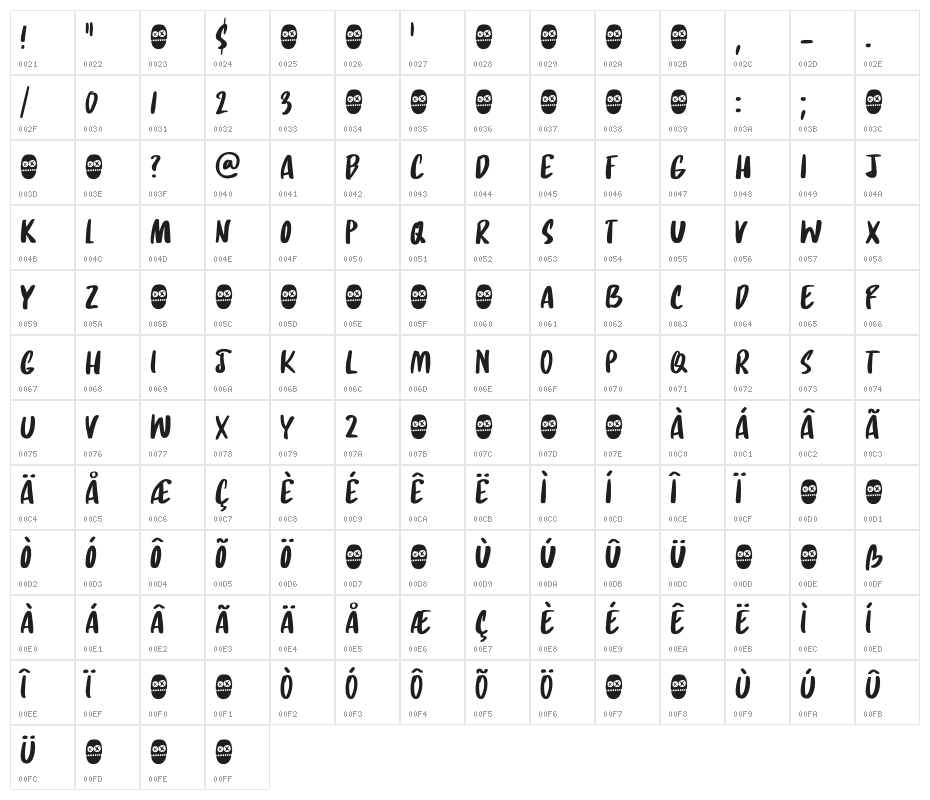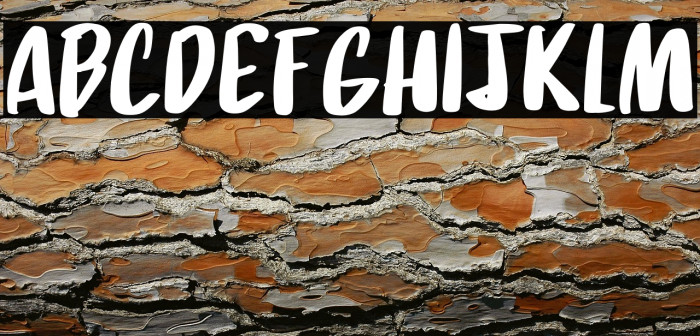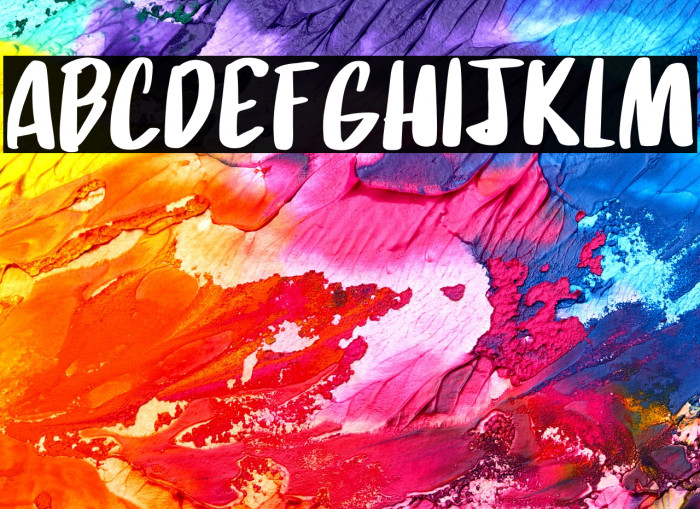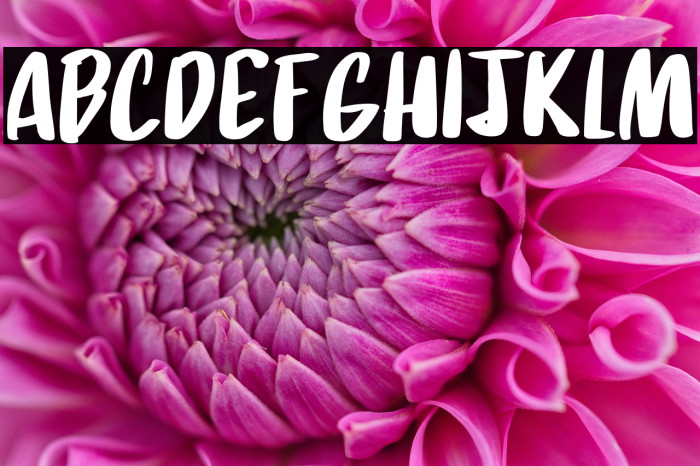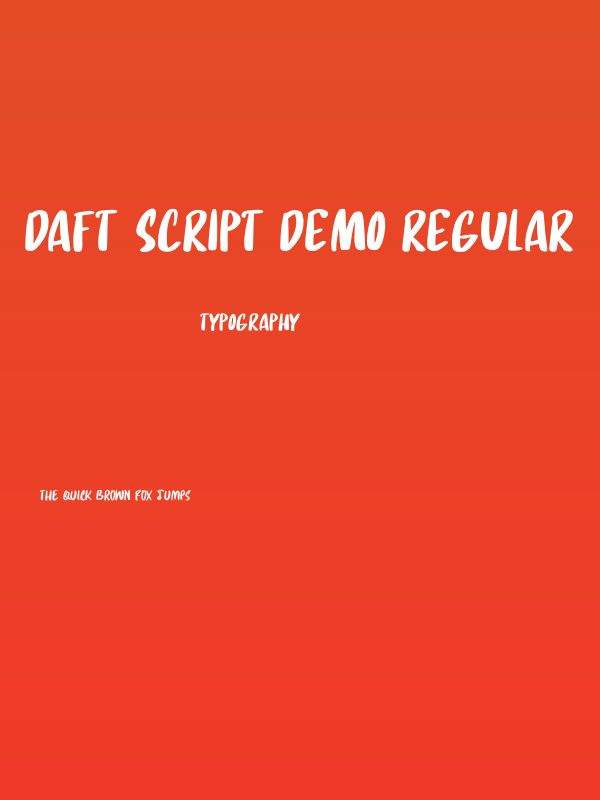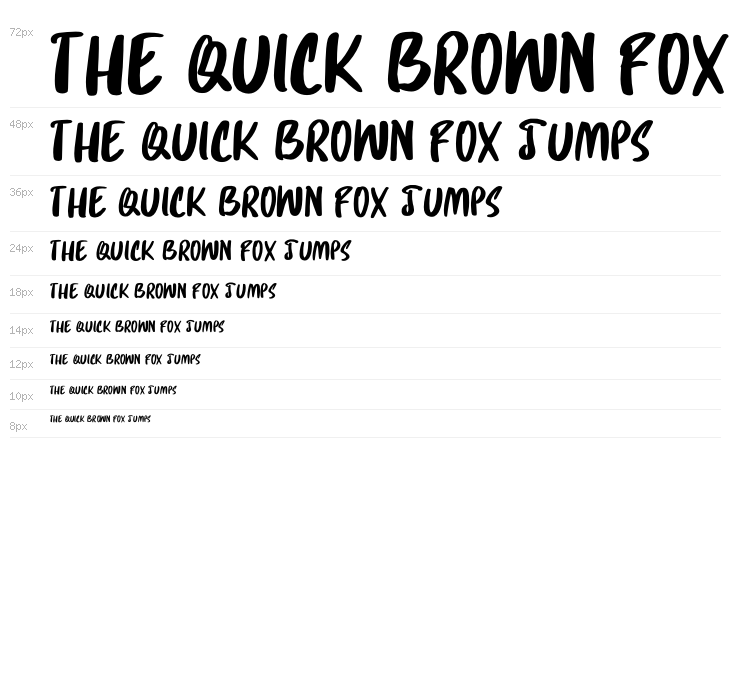
Daft Script DEMO Regular Font
Daft Script DEMO Regular Description
This font features a bold and playful script style with a hand-drawn appearance. The letters are rounded and slightly slanted, giving them a dynamic and energetic feel. The uppercase and lowercase characters maintain a consistent flow, enhancing the casual and friendly vibe. The numbers and special characters are designed to match the overall style, ensuring a cohesive look across all text elements. The font's thick strokes and smooth curves make it highly legible, even at smaller sizes, while its unique personality adds a touch of creativity to any design.